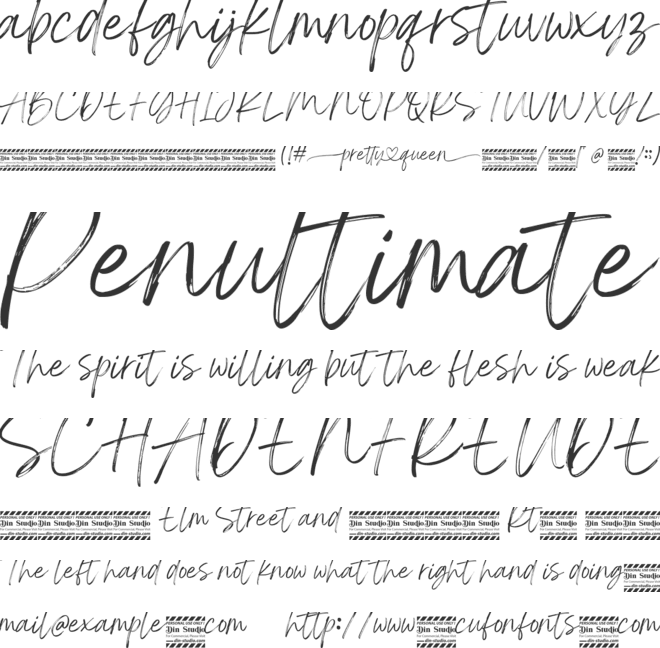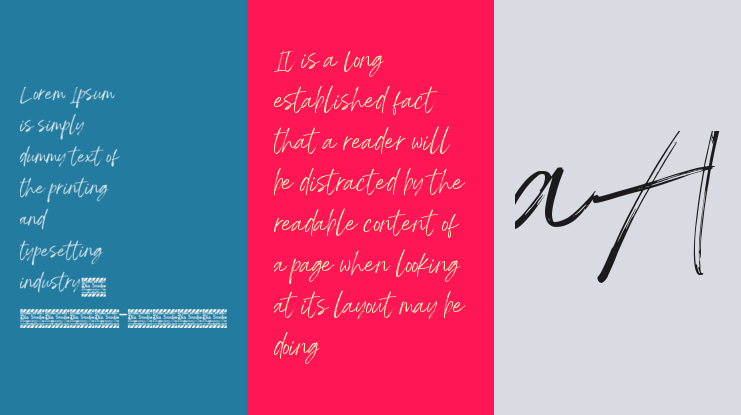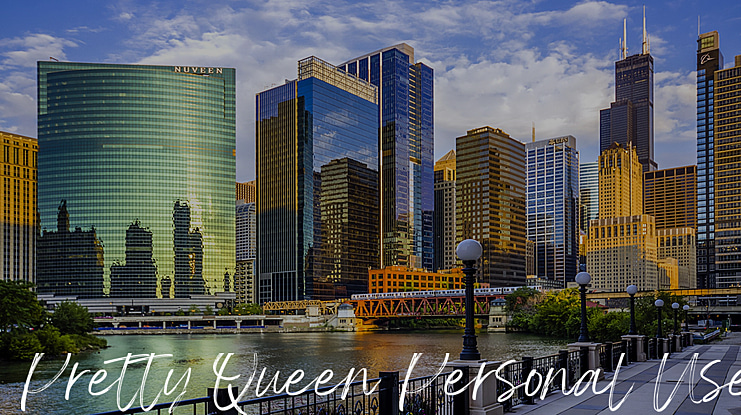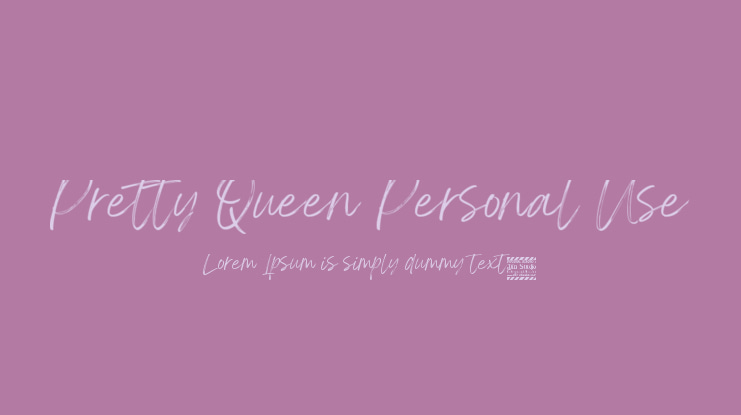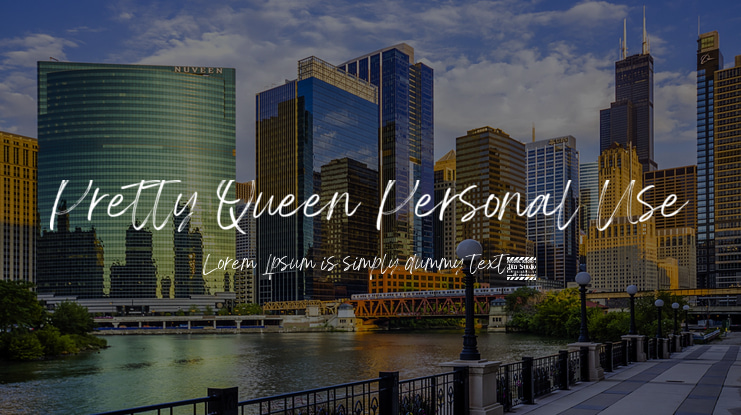
Pretty Queen is a beautiful brush signature font. Made for any professional project branding. Every letter has a unique and beautiful touch. Made from our talented font designer.
•52 Stylistic set
•26 Uppercase Alternates
•8 Ligatures
•Multilingual Support
•PUA encoded